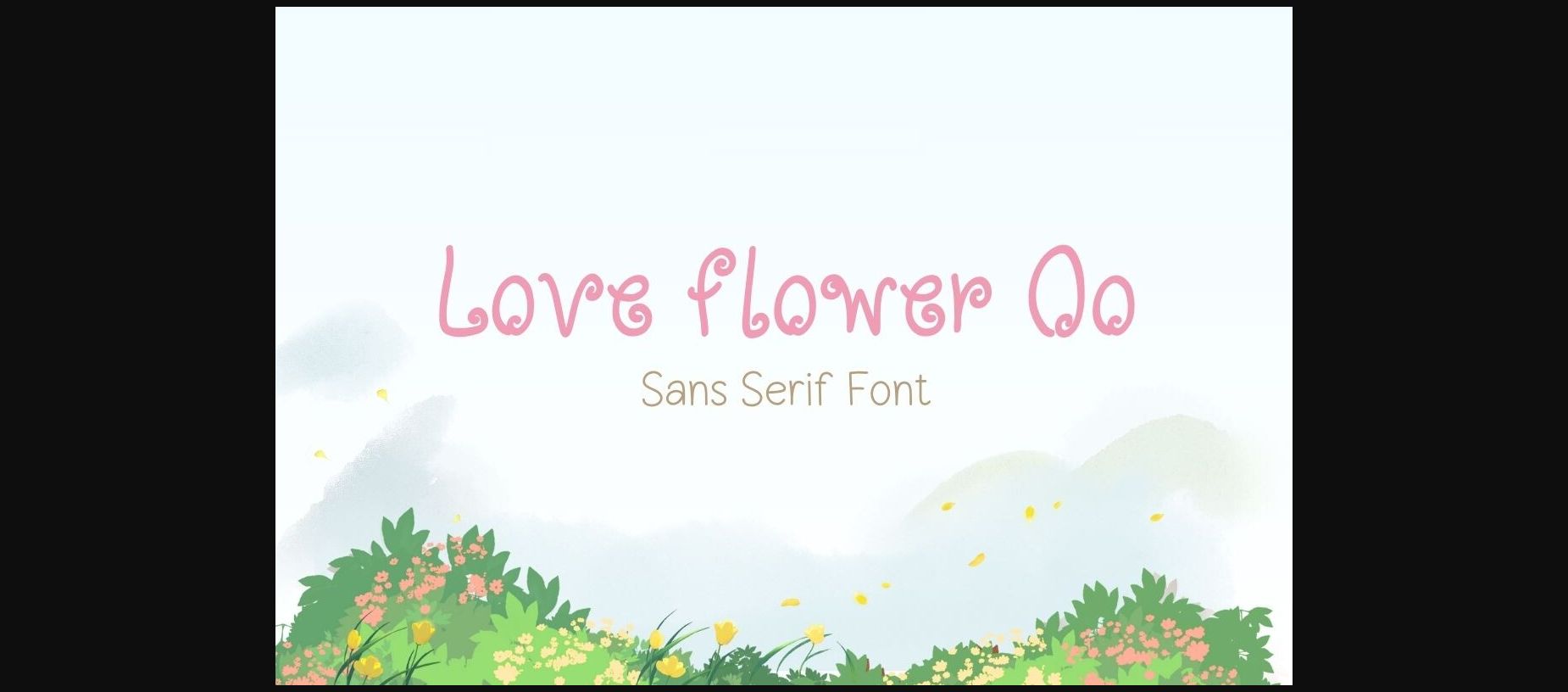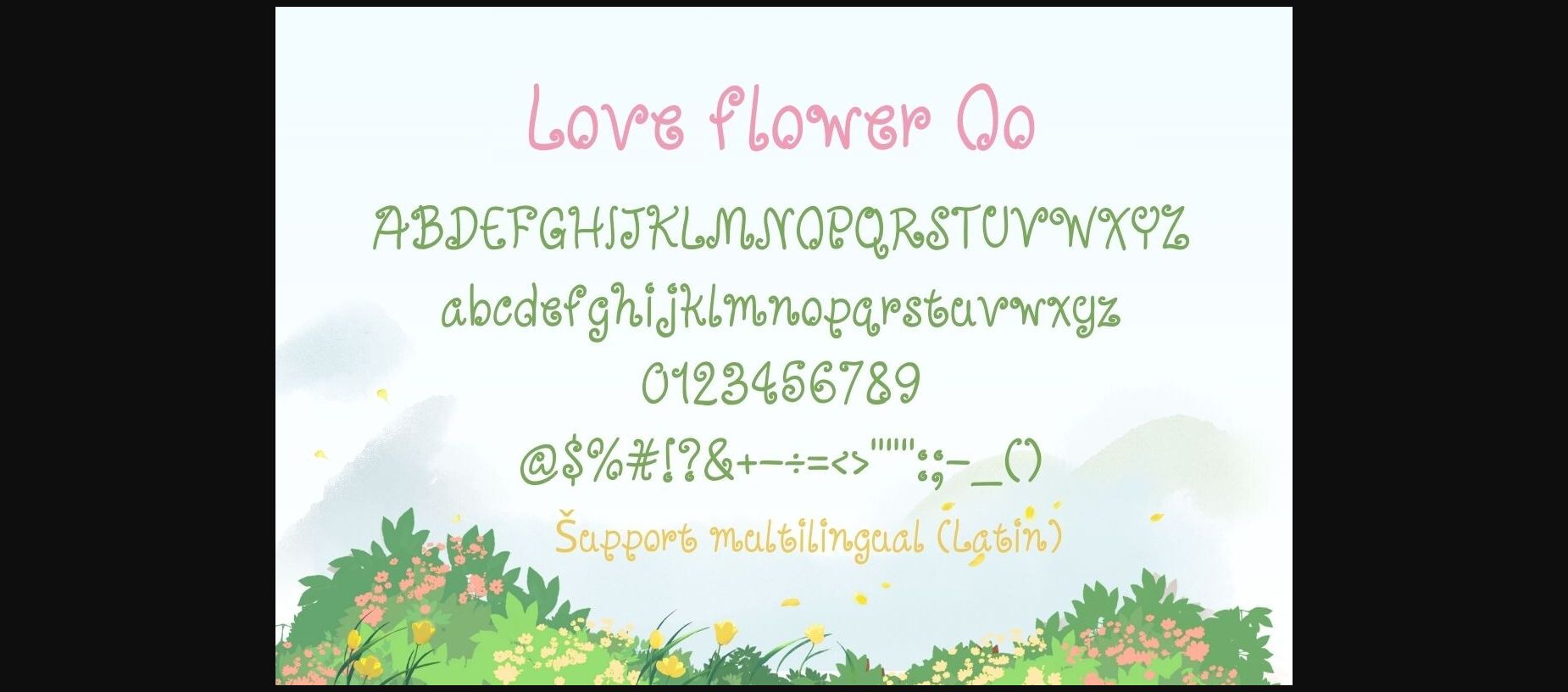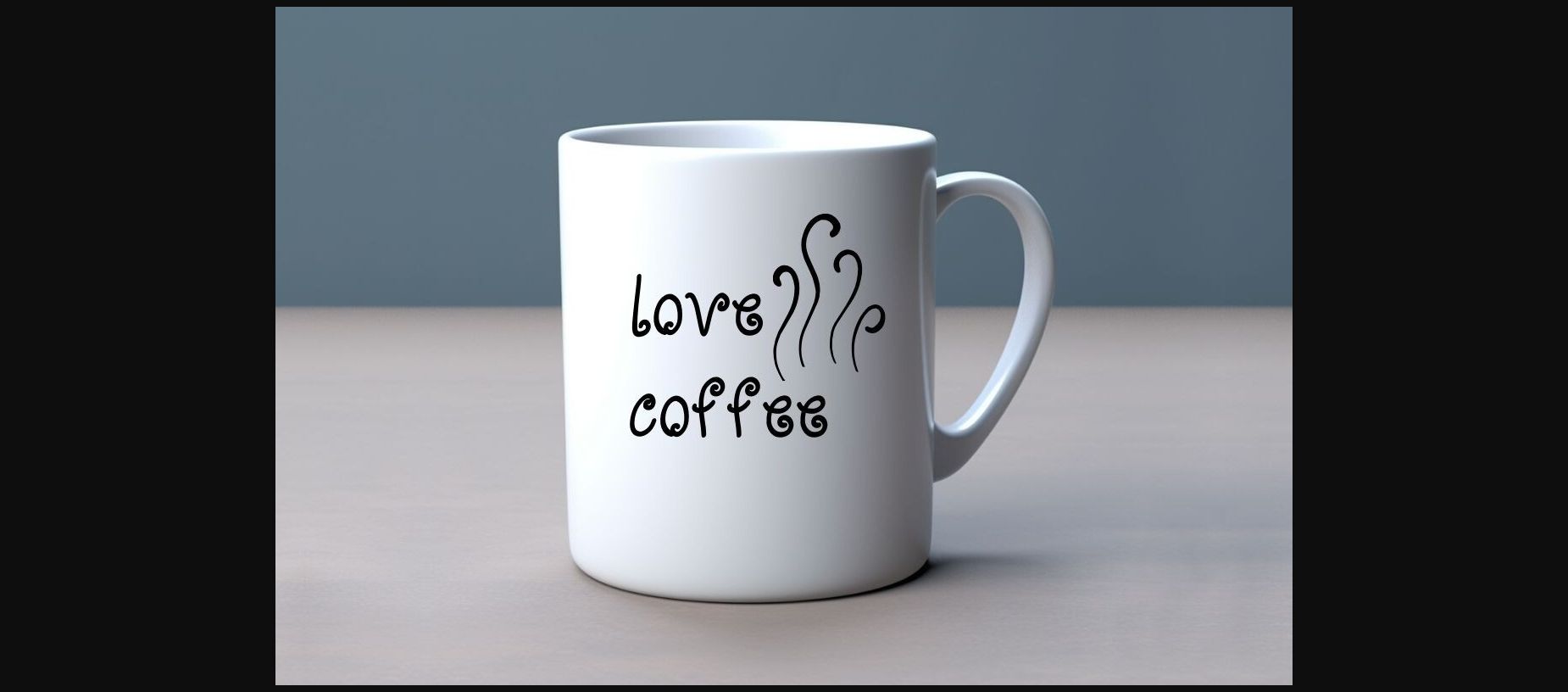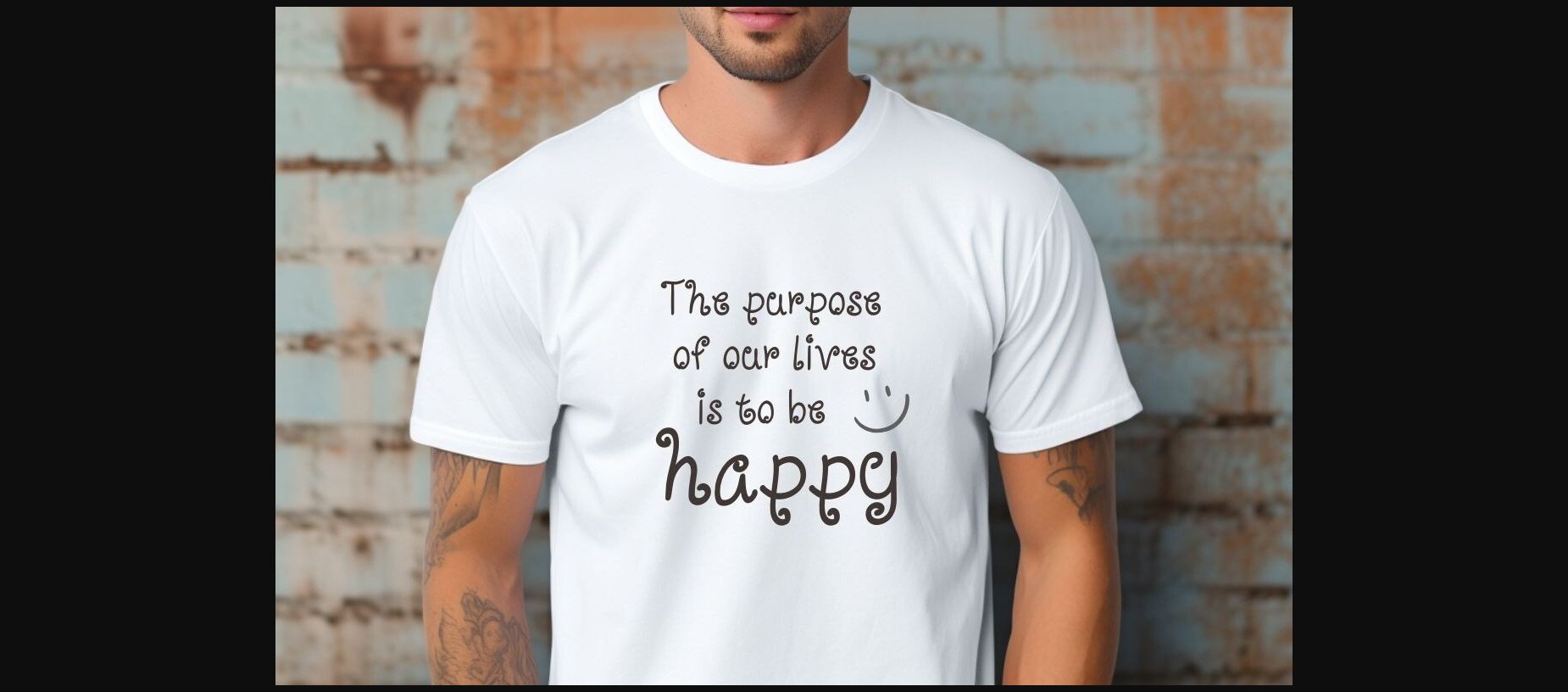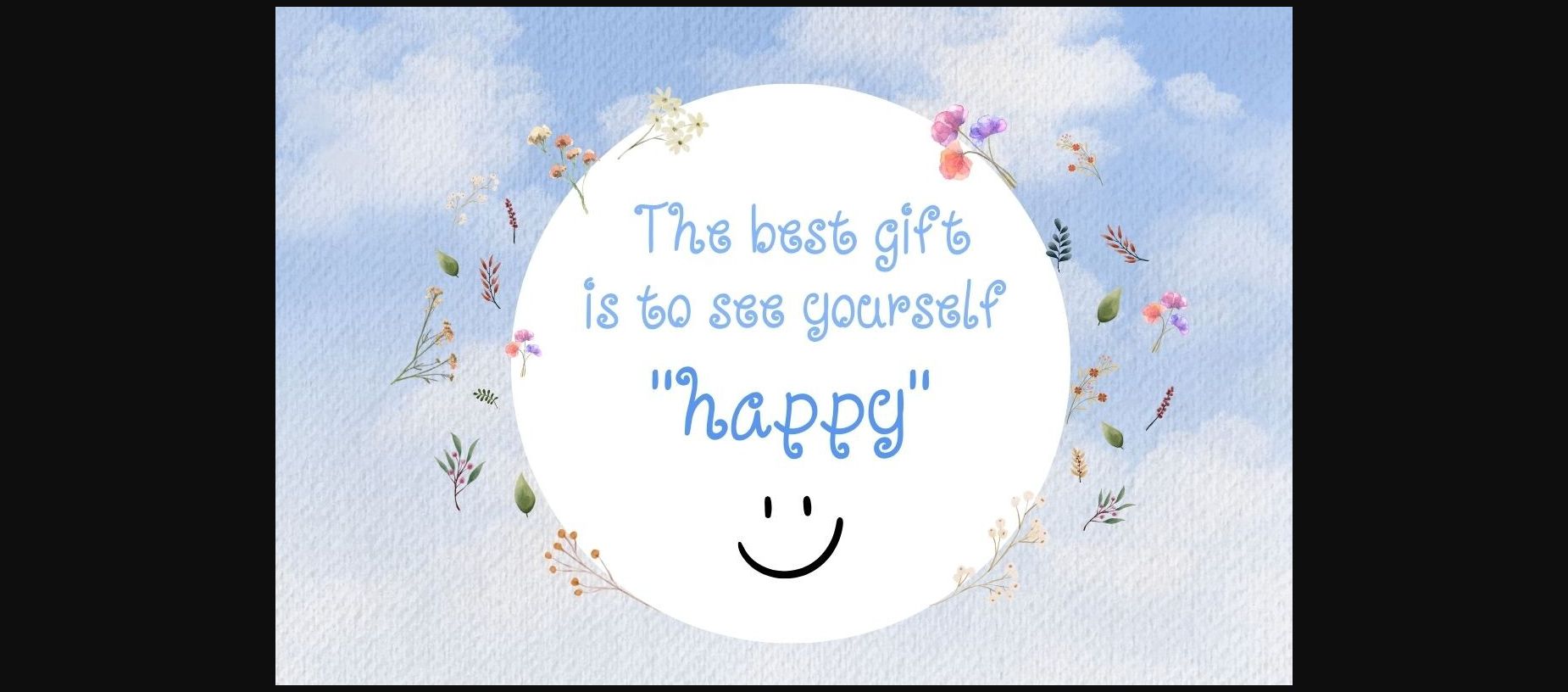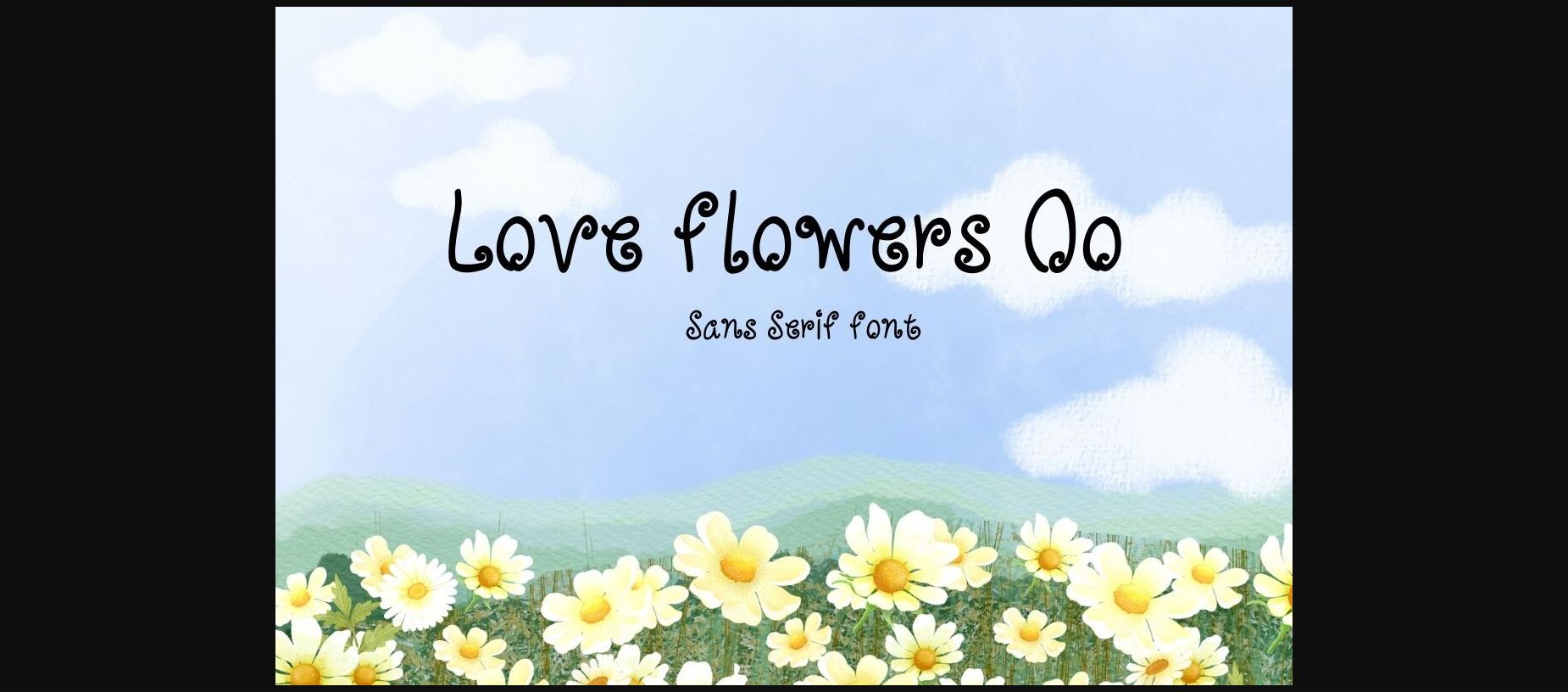
HomeSans Serif FontsLove Flowers Oo Font Sans Serif Fonts Love Flowers Oo Font FacebookXPinterestWhatsApp 1 of 8 ... Love Flowers Oo Font Poster 2... Love Flowers Oo Font Poster 3... Love Flowers Oo Font Poster 4... Love Flowers Oo Font Poster 5... Love Flowers Oo Font Poster 6... Love Flowers Oo Font Poster 7... Love Flowers Oo Font Poster 8... About Love Flowers Oo Font Love flowers Oo is a minimal and neat sans serif font with clean lines and a sleek aesthetic. It would be an awesome addition to your fun projects and creative designs. DOWNLOAD NOW People also explored Aurora Font Bherliant Font Great Food Font Harlysta Rafaello Font Miss Fajardose Emmeline Teacher Font Straight Font 291 0 TagsLove Flowers Oo Font Previous articleStagera FontNext articleBiofill Lo Font LEAVE A REPLY Cancel reply Comment: Please enter your comment! Name:* Please enter your name here Email:* You have entered an incorrect email address! Please enter your email address here Website: Save my name, email, and website in this browser for the next time I comment. Personal Use Free Amelline Personal Use Free Read more about this font Multicolore Personal Use Free Read more about this font Budmo Personal Use Free Read more about this font Abingdon Personal Use Free Read more about this font BLOG Fonts That Capture the Spirit of New York City New York City is more than just a place—it’s an experience, a rhythm, a visual language... Top 10 Handwritten Fonts That Elevate Your Designs Free Fonts Risk: Why Free Fonts Can Be Dangerous for Designers Modern Sans-Serif Fonts That Brands Love in 2025